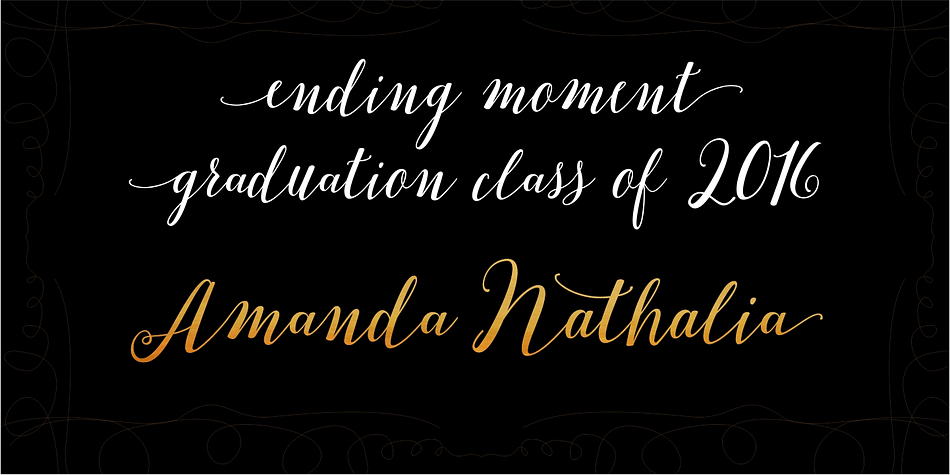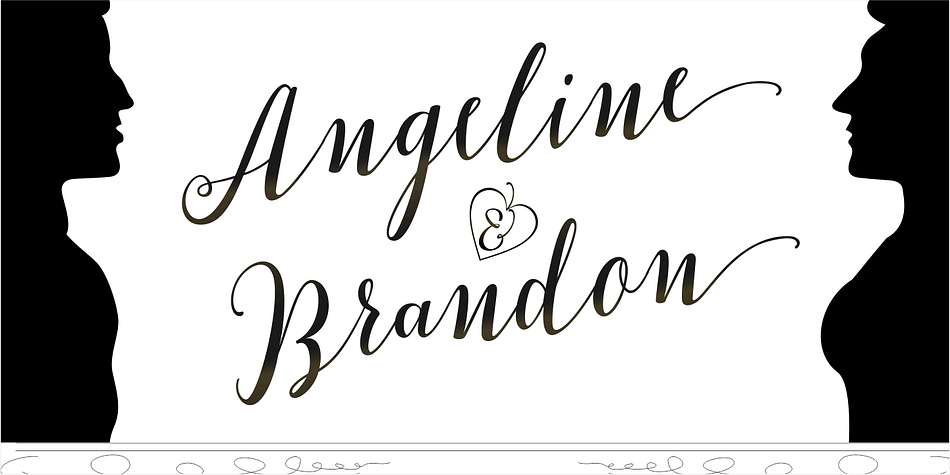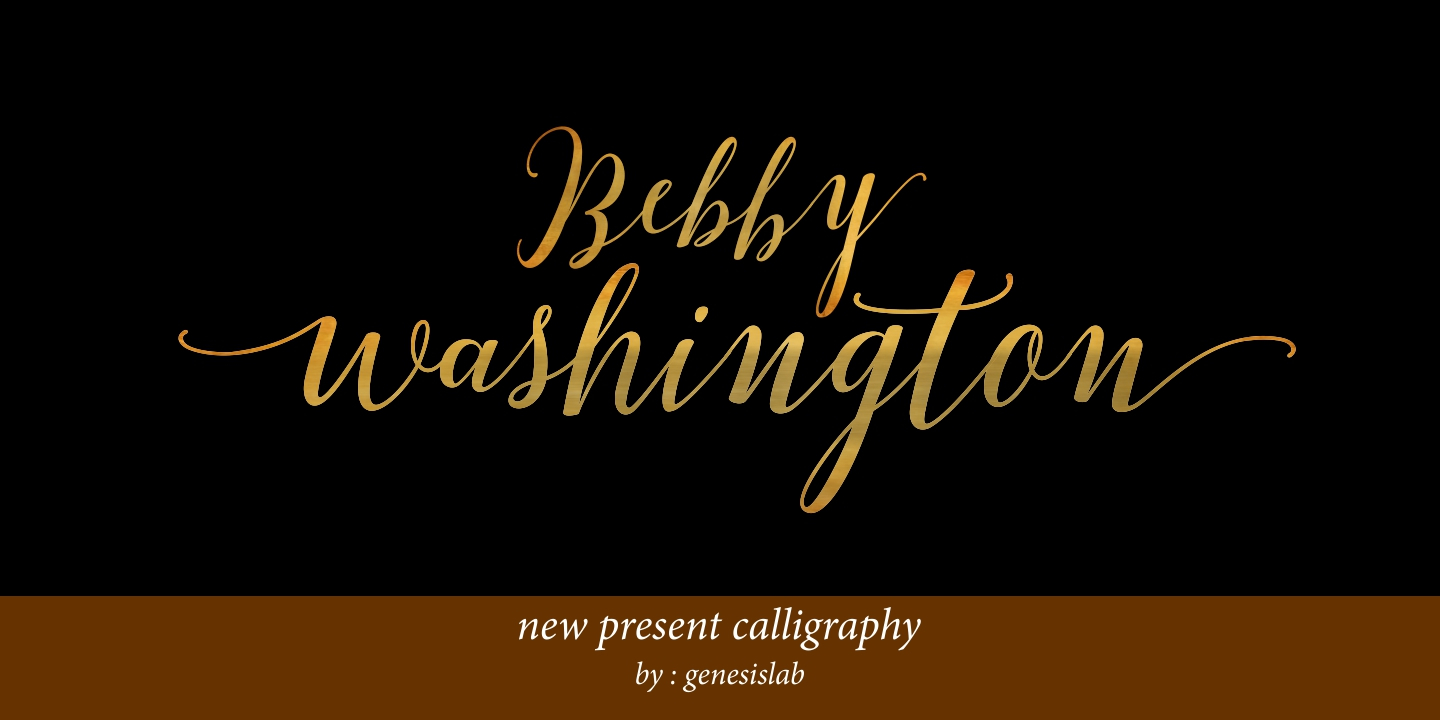
Bebby Washington is a script and modern calligraphy font published by Genesislab.
Bebby Washington is a simple modern calligraphy font. It can be used with ease in many applications that support your work.
This font is right at home in today’s growing market. It is a cursive typeface for the soft design style. You can mix it with fun and feminine shades. It is trendy and a wonderful way to highlight your party or wedding invitations, parties, graduations, birthdays, gatherings, and other.